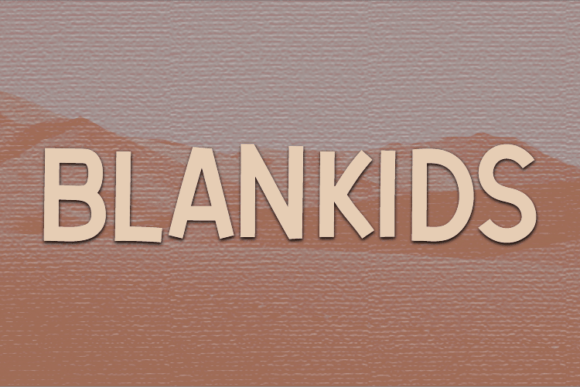
The Blankids Font: A Designer’s New Best Friend
I’ll never forget the time I was working on a project for a client who needed a unique font for their brand. I had spent hours scouring the internet for the perfect one, but nothing seemed quite right. That was until I stumbled upon the Blankids font. Its quirky, playful style instantly caught my eye, and I knew I had found what I was looking for. In this article, I’ll share my experience with the Blankids font, and show you how to make the most of its incredible versatility.
An Honest Review of Blankids Font
• ✨ Unique and eye-catching design that’s perfect for making a statement
• ✅ Highly versatile and can be used for a wide range of projects, from quotes and notes to T-shirts and more
• 💡 Excellent for creative hobbyists and designers who want to add a personal touch to their work
• 🎨 Great for use in digital and print designs, including social media graphics, posters, and flyers
While the Blankids font is incredibly useful, there are a few things to keep in mind. ⚠️ Some users have reported that the font can be a bit tricky to read at smaller sizes, so it’s best to use it for headlines or titles rather than body text. 🤔 Additionally, the font’s quirky style may not be suitable for more formal or professional projects.
The Story Behind Blankids Font
The Blankids font was designed by a team of creatives who wanted to create a unique and versatile font that could be used for a wide range of projects. Inspired by the world of art and design, the team set out to create a font that was both fun and functional. With its quirky style and highly legible design, the Blankids font has quickly become a favorite among designers and hobbyists alike.
What is the Blankids font best used for? The Blankids font is perfect for use in quotes, notes, T-shirts, and many more projects. Its highly versatile style makes it suitable for a wide range of designs.
Is the Blankids font easy to read? While the Blankids font is highly legible, it can be a bit tricky to read at smaller sizes. It’s best to use it for headlines or titles rather than body text.